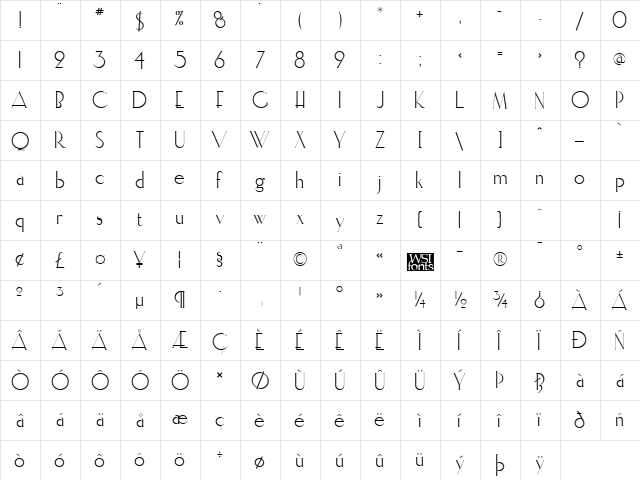
ElisiaInline Regular Font Preview
ElisiaInline Regular
ElisiaInline Regular Font Details
Design Context for ElisiaInline Typeface
ElisiaInline brings ornamental detail and strong personality to headlines and identities, where visual impact matters more than quiet functionality.